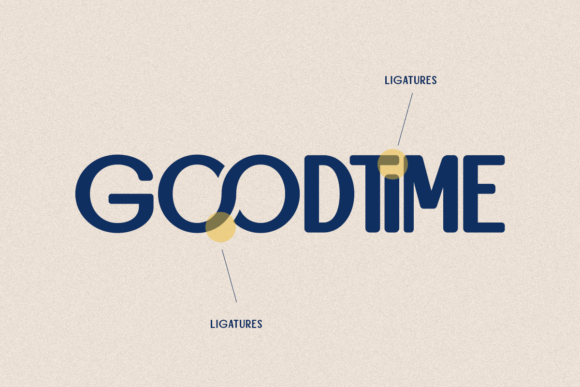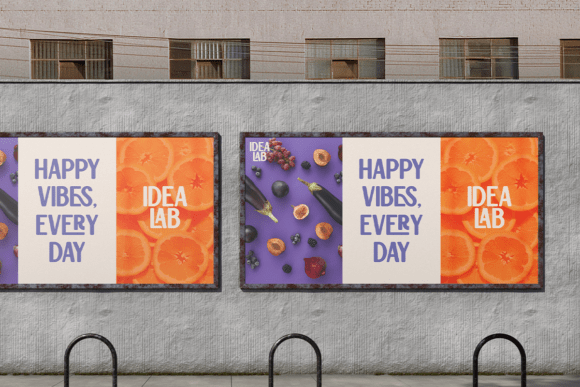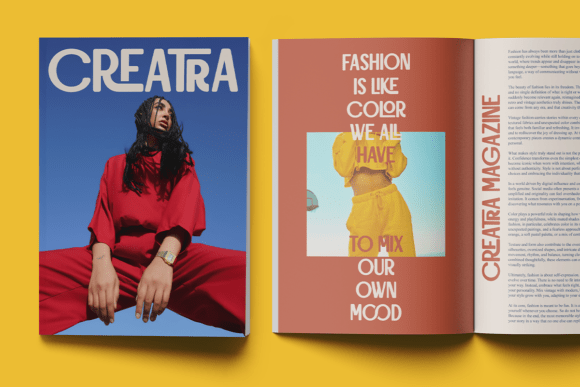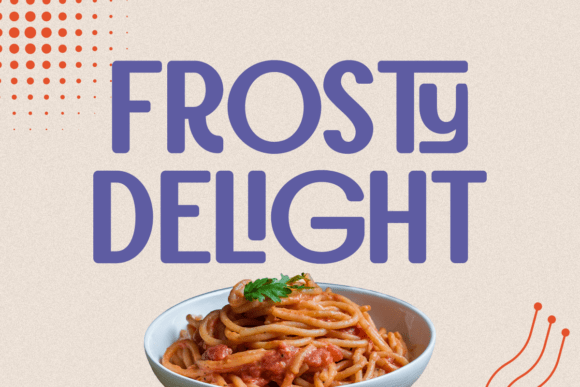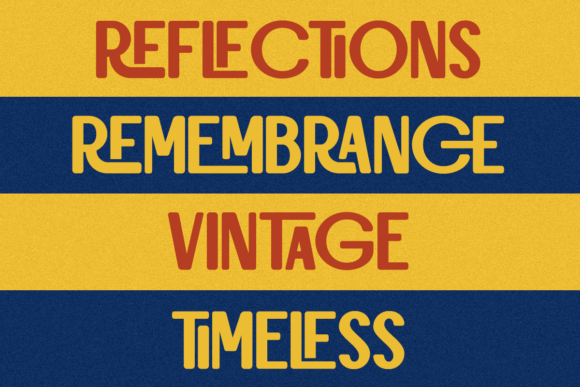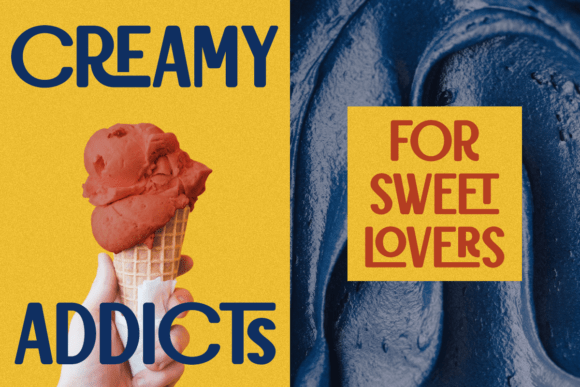
Introduction to Lotzo Font Font
Fonts play a crucial role in design, and the Lotzo Font font is a typeface that brings both character and versatility to any project. Whether you’re working on a branding project, a website, or a print design, the Lotzo Font font offers a unique style that can elevate your work.
Lotzo is a bold retro typeface that blends nostalgic charm with a clean, modern edge.
Inspired by vintage signage and classic branding, it delivers a strong visual identity through its smooth curves, geometric balance, and distinctive ligatures Every letter is crafted to feel both playful and confident, making it perfect for designs that want to stand out without feeling outdated.
Key Features of Lotzo Font Font
Why Choose Lotzo Font Font?
The Lotzo Font font is more than just a typeface – it’s a design tool that helps you communicate your message with style and clarity. Its unique character set and versatile design make it suitable for a wide range of applications, from elegant invitations to bold headlines.
With its carefully crafted letterforms and balanced proportions, the Lotzo Font font ensures readability and visual appeal across all mediums.
What makes Lotzo Font font special?
The Lotzo Font font stands out with its unique design, exceptional readability, and versatility across various design applications.